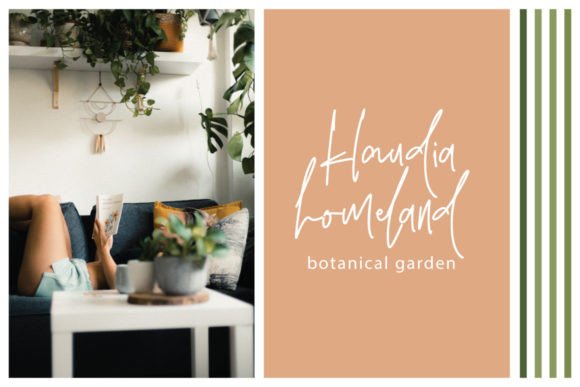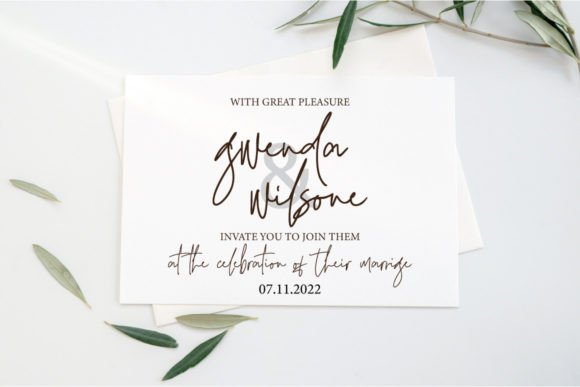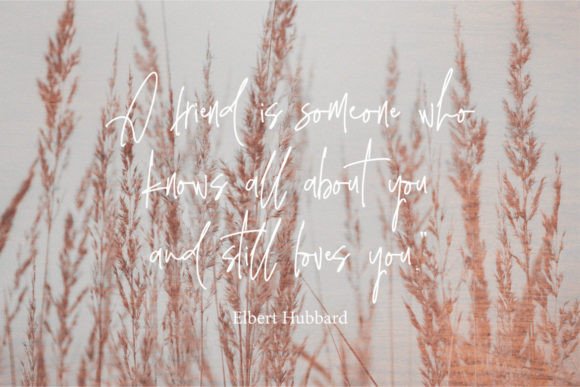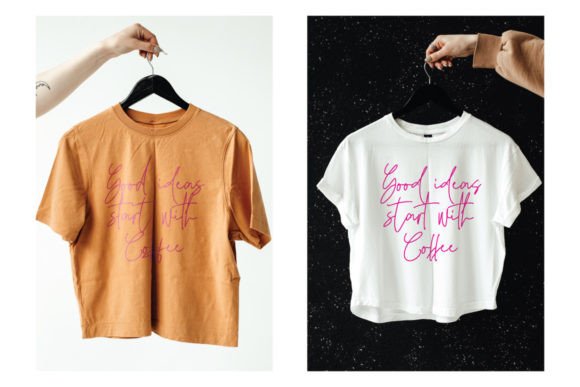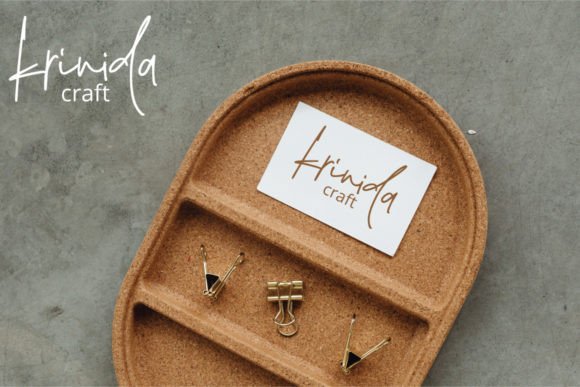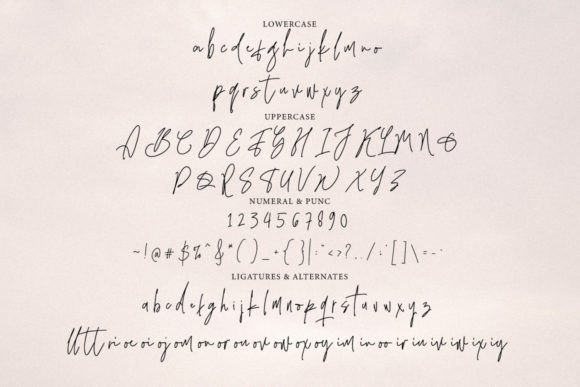
Introduction to Qinderia Signature Font
Have you ever been brainstorming a creative project and felt like you’re missing that perfect touch to make it truly special? For designers, this feeling can be a common hurdle, especially when it comes to finding the right design resource to bring our ideas to life. That’s why we’re excited to introduce you to the Qinderia Signature Font, a beautiful handwritten font that’s sure to become your new go-to companion for all your creative endeavors.
With its natural and unique style, the Qinderia Signature Font is incredibly versatile, making it the perfect fit for a wide range of designs. Whether you’re working on a personal project or a commercial design, this font is sure to add a touch of warmth and personality to your work.
Key Features of Qinderia Signature Font
- Unique, Hand-Drawn Design: Qinderia Signature Font offers a distinctive, hand-drawn aesthetic perfect for creative projects requiring a personal touch.
- Perfect for Personal Projects: With its unique design and free download option, Qinderia Signature Font is ideal for personal projects, such as wedding invitations, business cards, and more.
Honest Review: Qinderia Signature Font
As a designer, I’m always on the lookout for high-quality design resources to elevate my creative projects. Recently, I stumbled upon the Qinderia Signature Font, and I’m excited to share my honest review with you.
What works well: ✨ The Qinderia Signature Font is a stunning addition to any design project. Its elegant script and modern feel make it perfect for branding, invitations, and other creative endeavors. I love how versatile it is, and it’s easy to use in various design contexts.
- High-quality design: The font is well-crafted, with smooth lines and a professional look.
- Transparent background: This allows for seamless integration into various design backgrounds.
Limitations: ⚠️ While the Qinderia Signature Font is an excellent addition to any design resource library, it may not be suitable for projects requiring a bold, sans-serif font. Additionally, some users may find the font’s script style a bit too elaborate for certain design contexts.
Overall impression: I’m thoroughly impressed with the Qinderia Signature Font. Its high-quality design, versatility, and free availability make it a valuable resource for any designer. I highly recommend adding it to your design resource library for your next creative project.
Use the Qinderia Signature Font in conjunction with other design elements to create a cohesive look. Experiment with different font sizes and styles to add visual interest to your design. With its transparent background, you can easily layer it over other design elements.
The Qinderia Signature Font is perfect for use in business cards, brochures, and other marketing materials. It’s also great for use in social media graphics, presentations, and documents. With its high-quality design, it’s a valuable resource for any creative project.